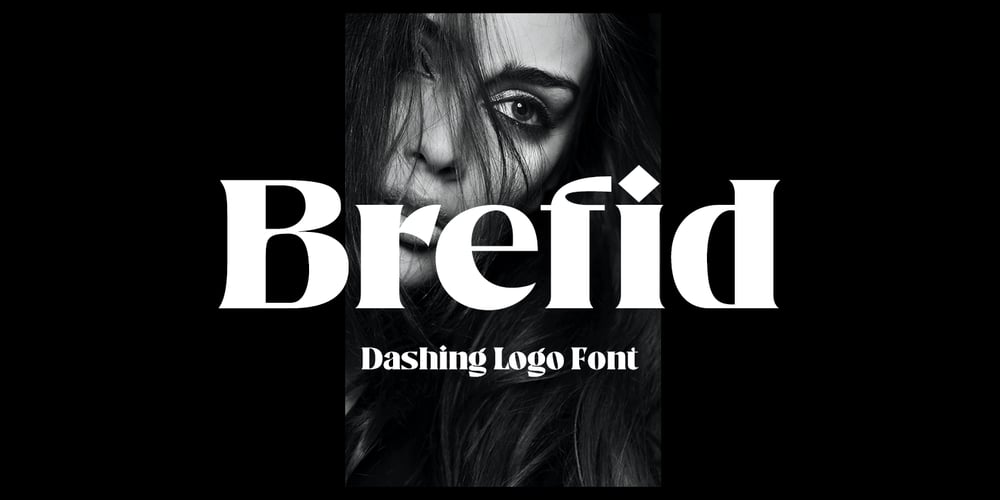
Brefid
Brefid font
Brefid Font Family was designed by Yusliana M Isa and published by Gian Studio. Brefid contains 1 styles and family package options. Brefid is a luxurious yet elegant display font. characters that suit today’s styles will be very interesting for you to create any design work with a classy model while still maintaining a calm and impressive style to look at.You’re sure to have inspiration to match your creativity!Free updates for more versions in the future.Thank You